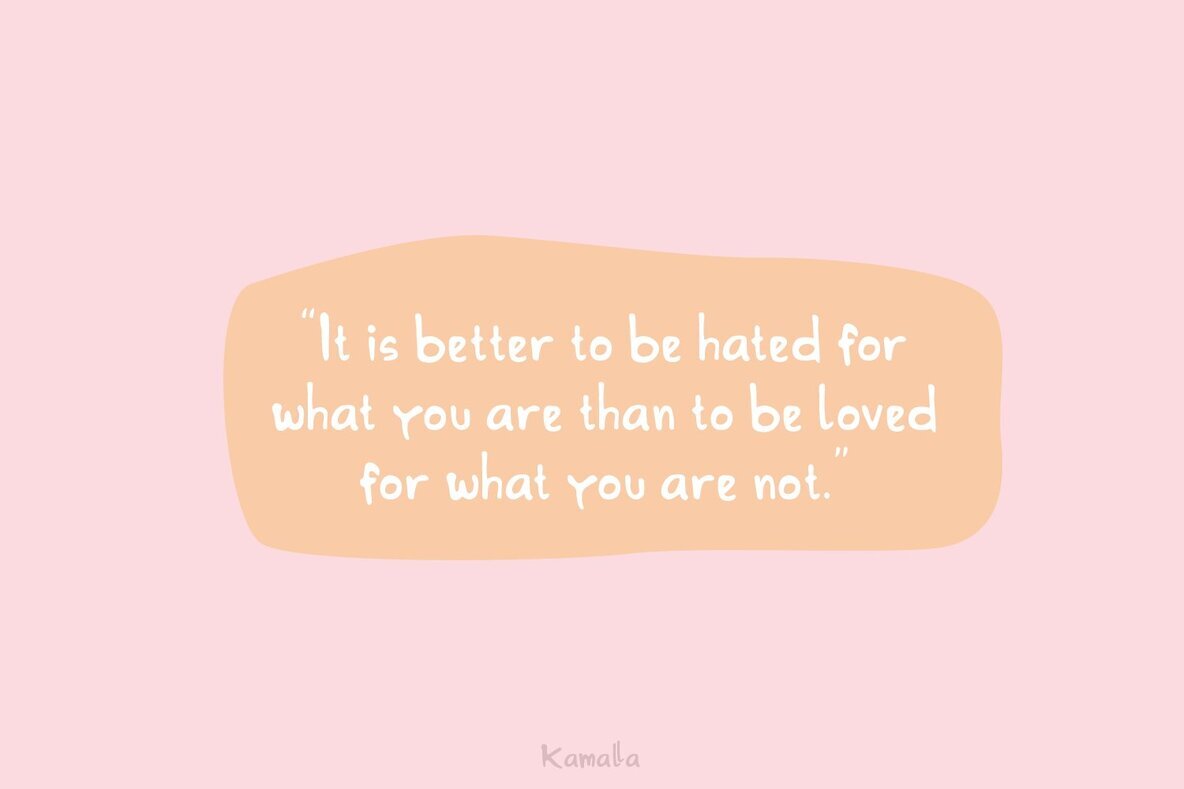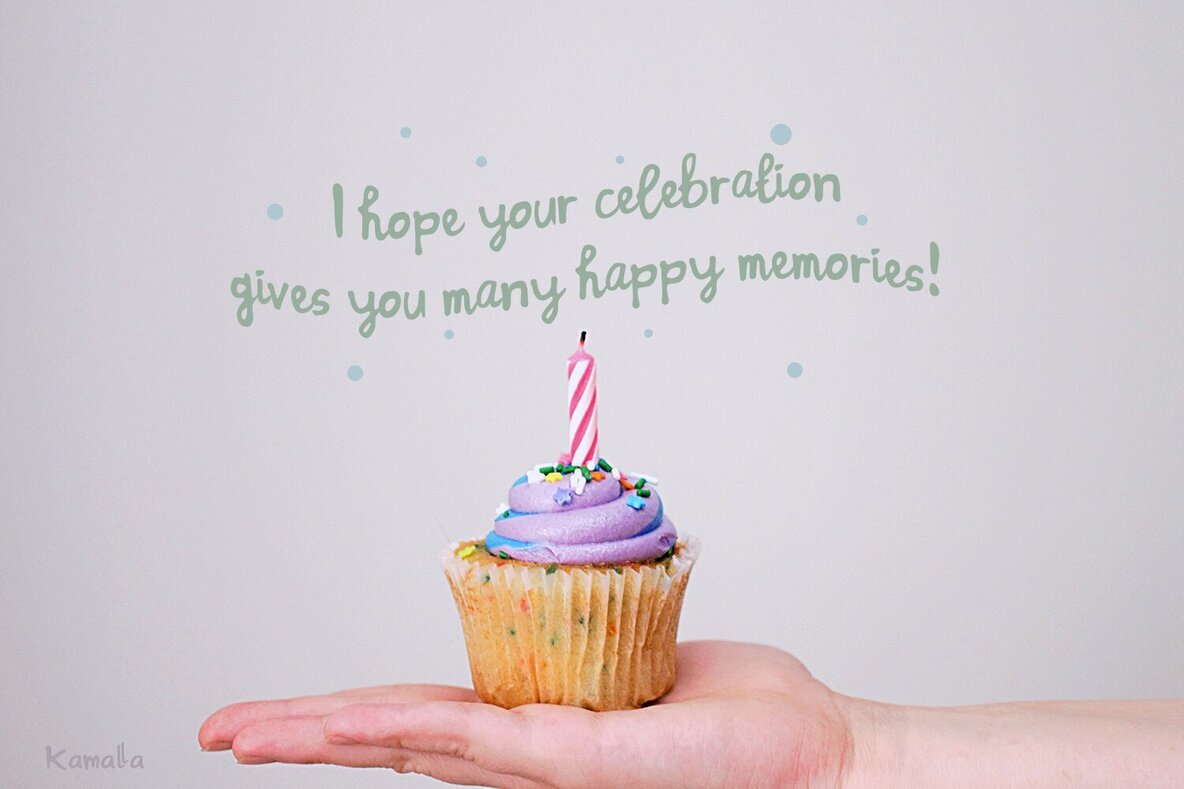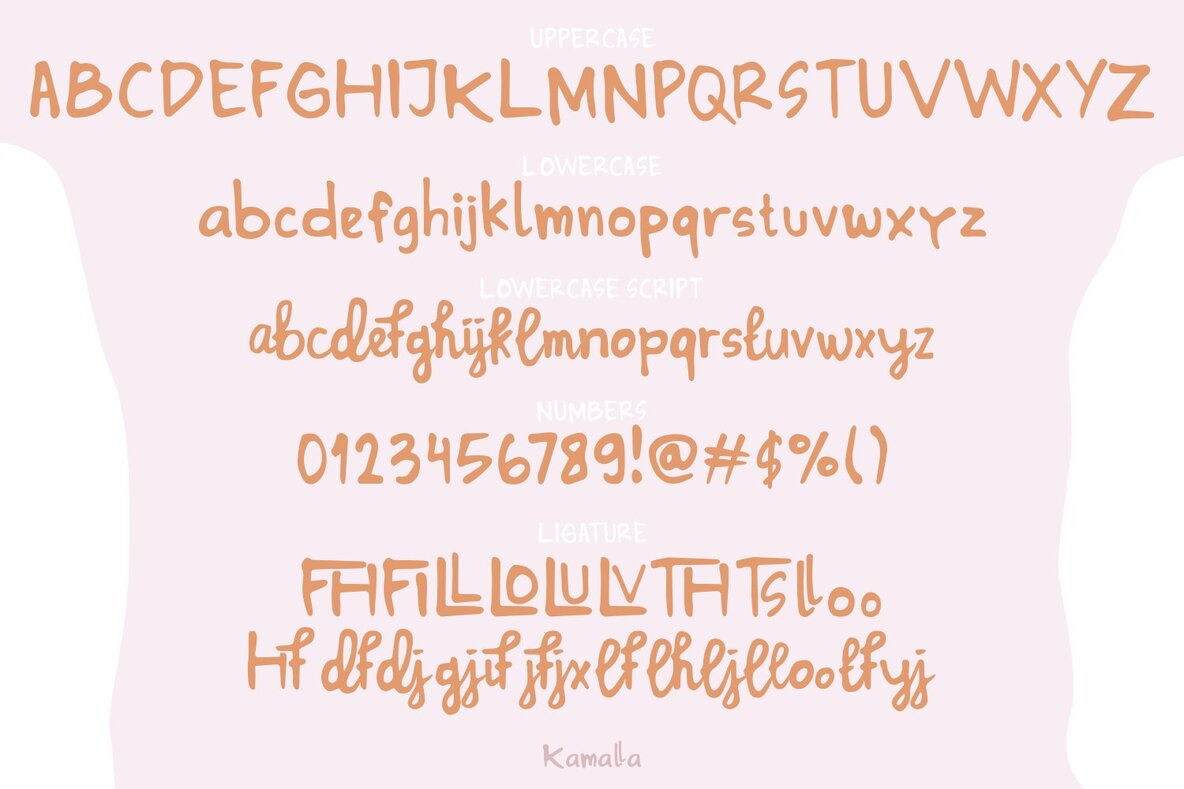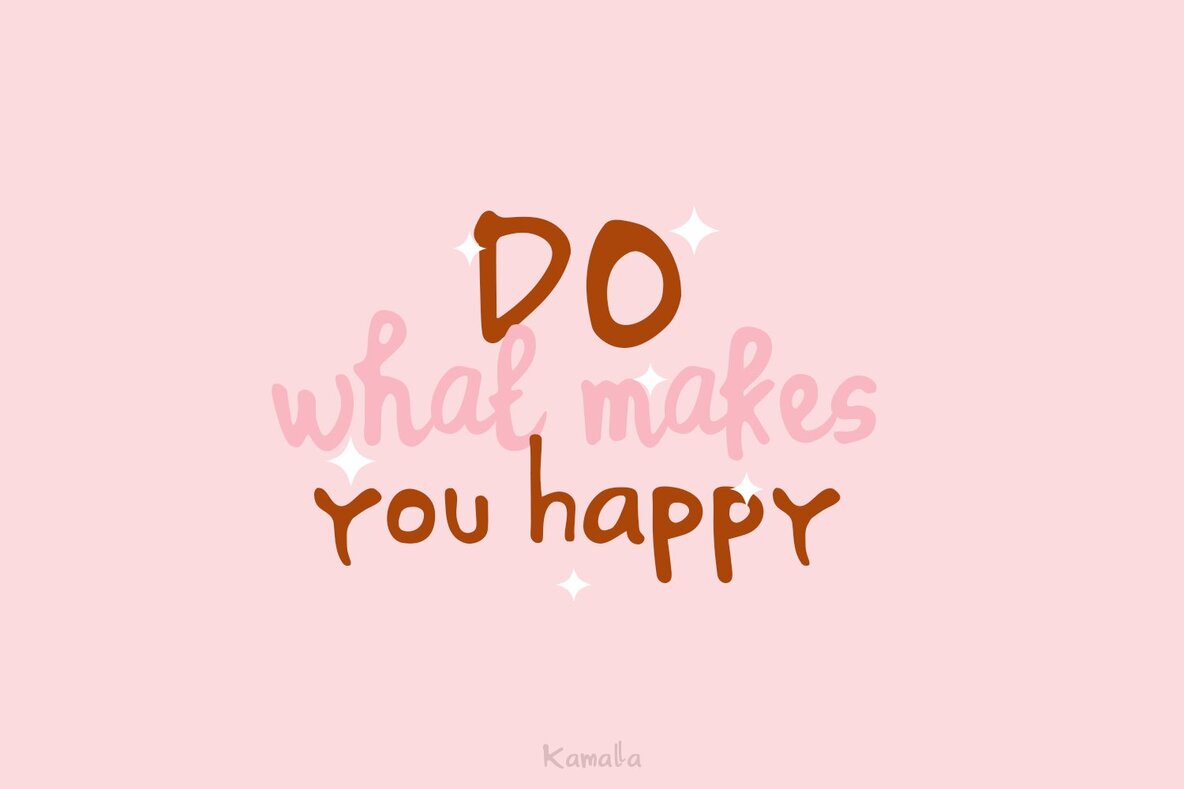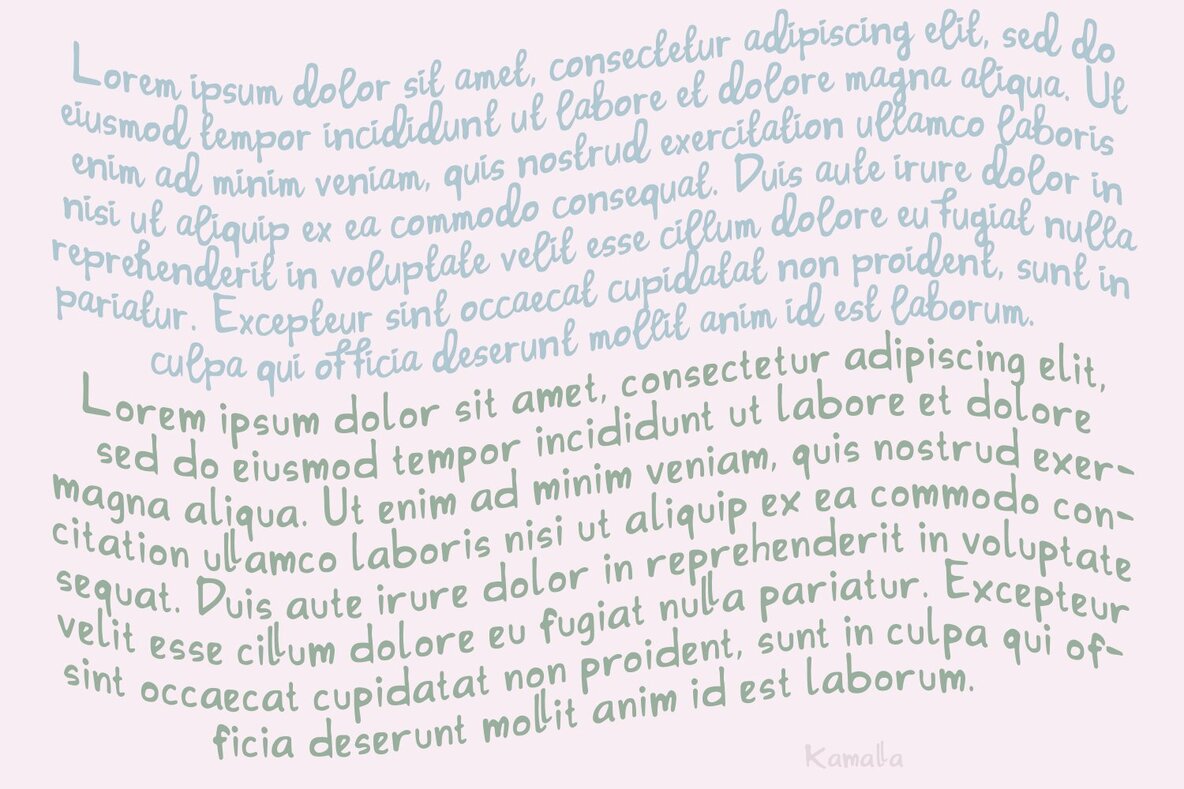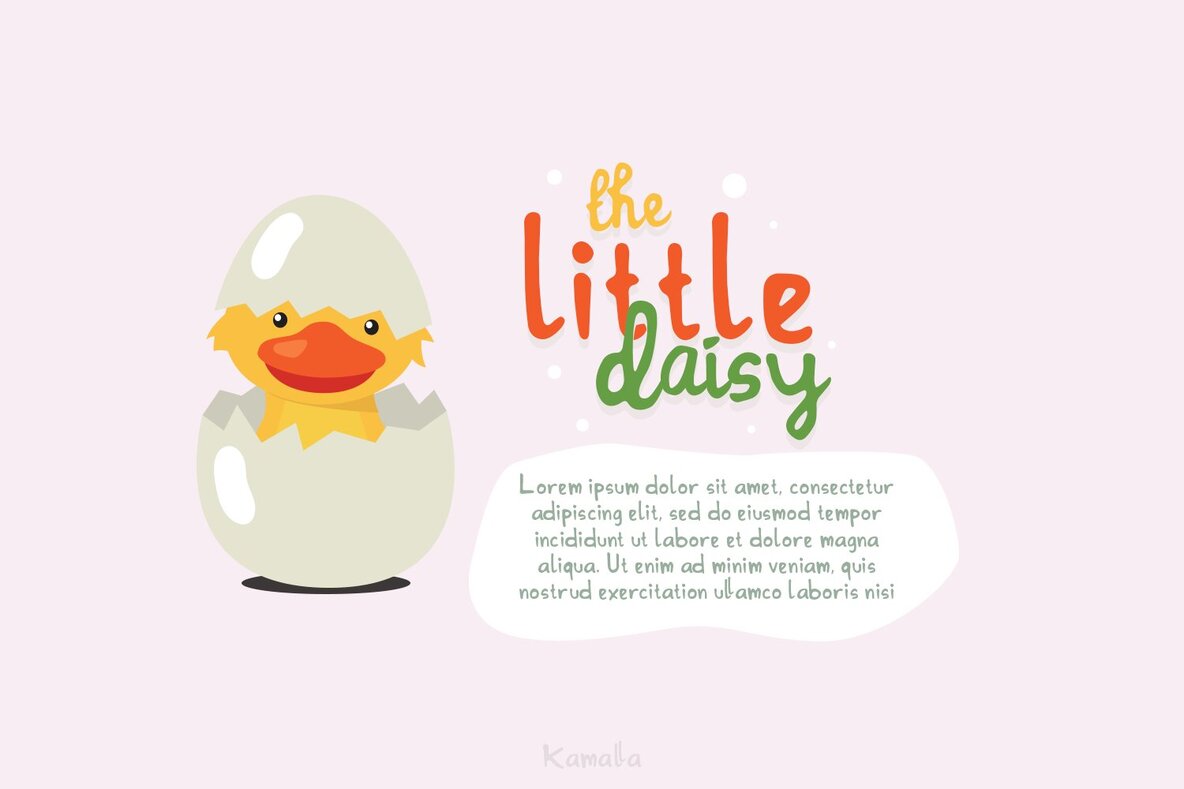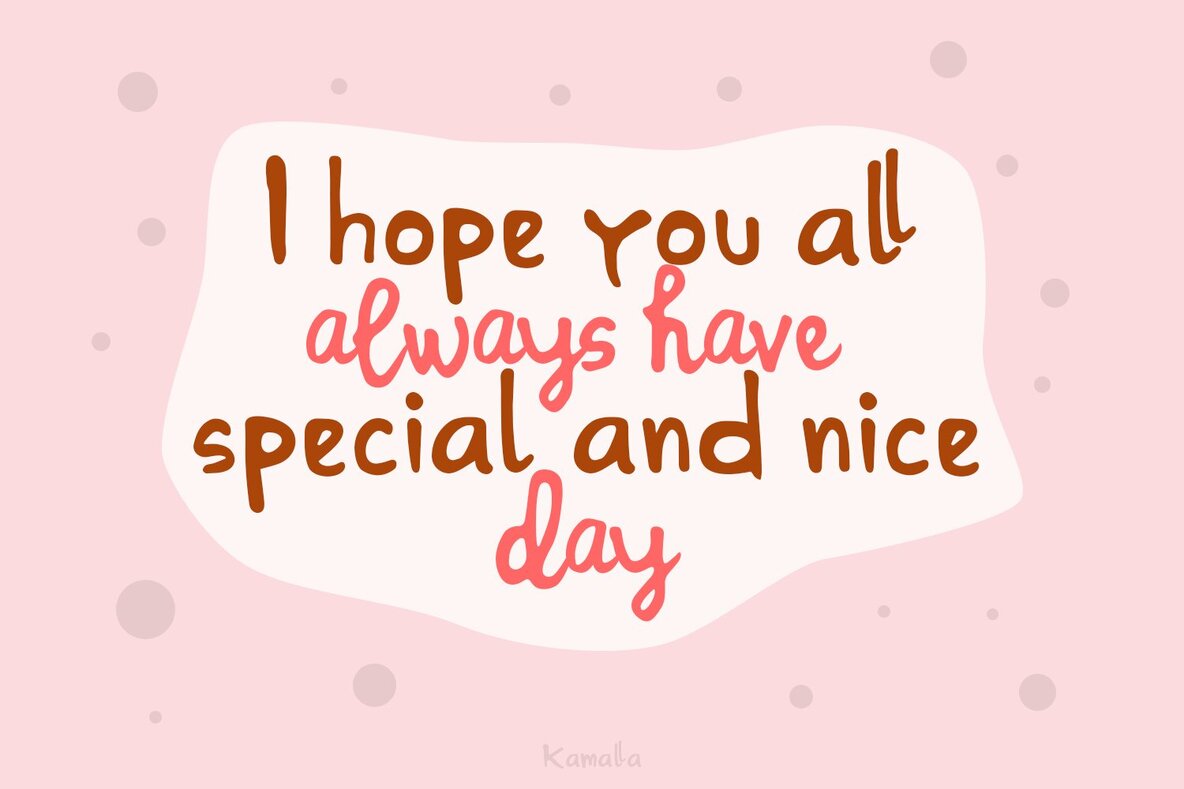
Kamalla Font
Introducing Kamalla is a cute font with a matching script and regular will be perfect for book, title branding, product packaging, invitation, quotes, t-shirt, label, poster, logo etc. Feature: - off, ttf - Uppercase & Lowercase - Number & Symbol - International Glyphs - Multilingual support - Ligature